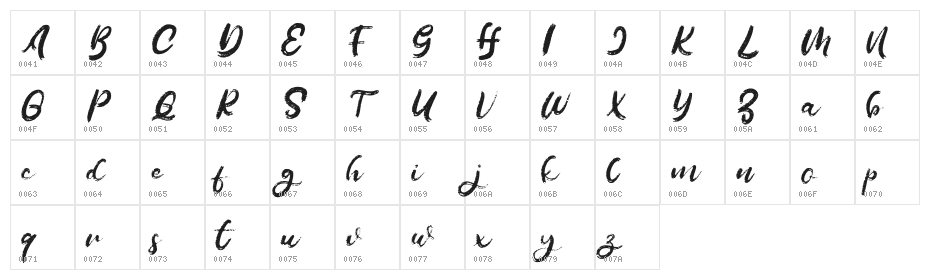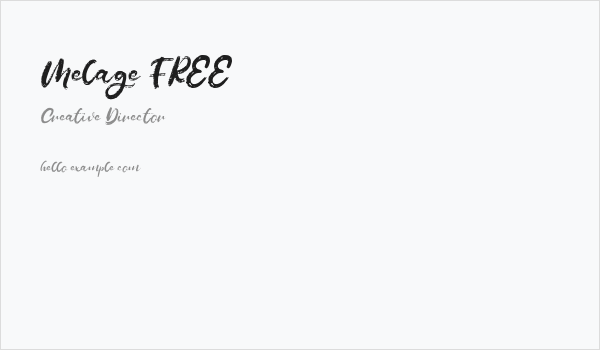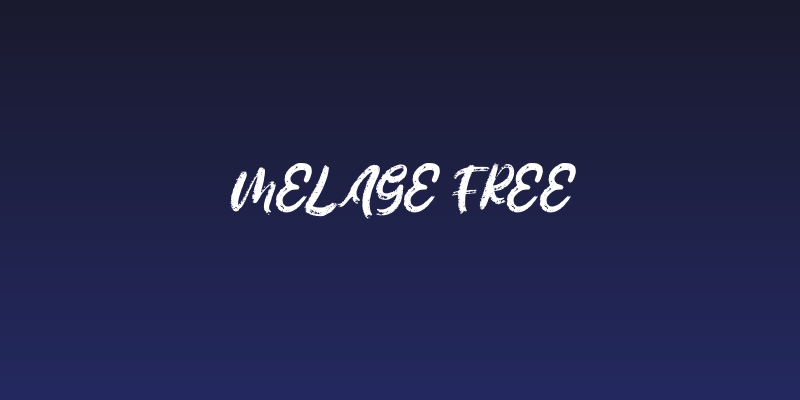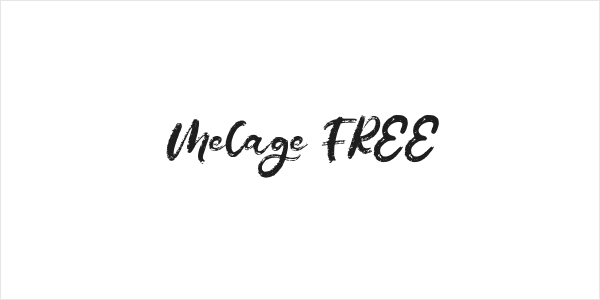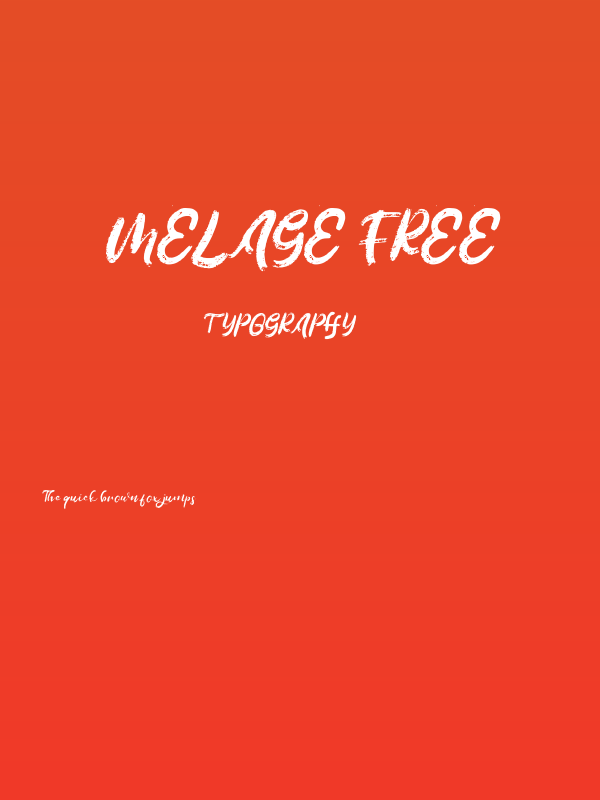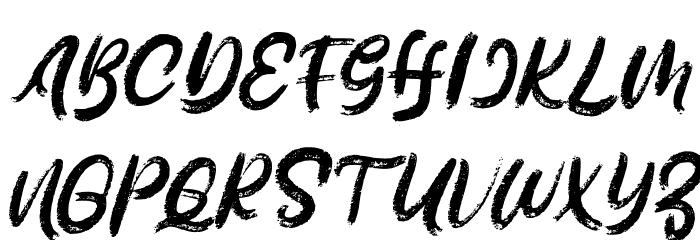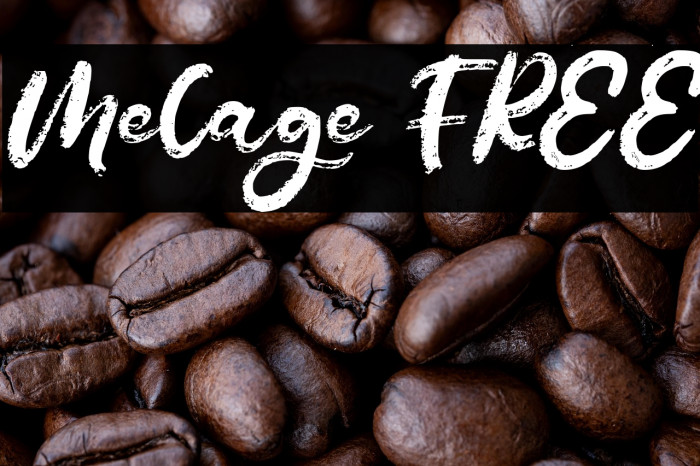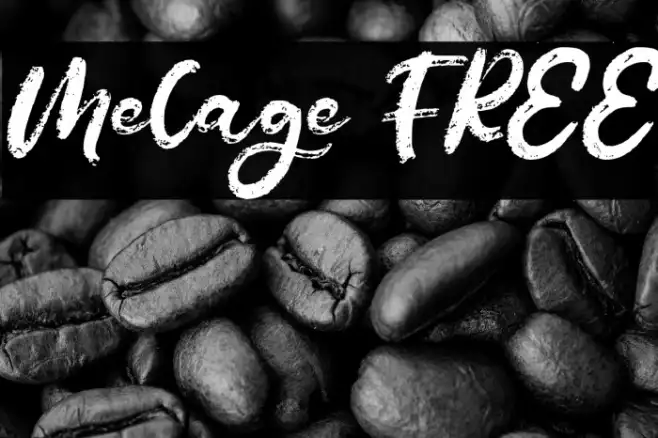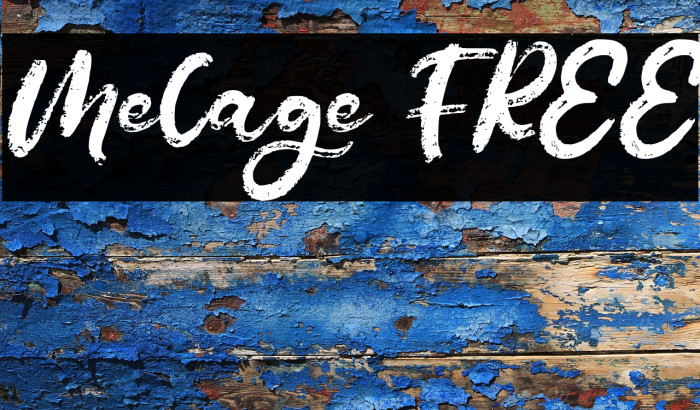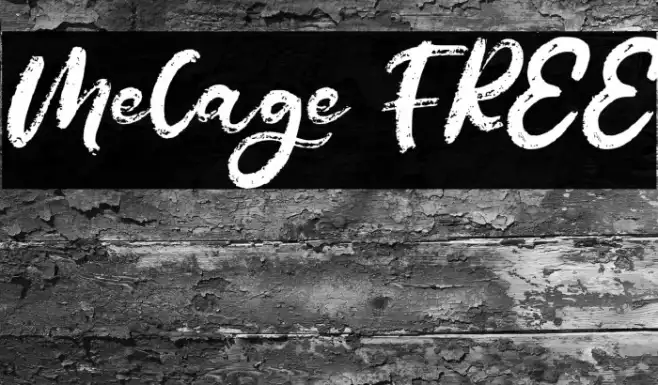
Melage FREE Font
Melage FREE Description
This font features a bold and expressive brush script style, characterized by its dynamic and fluid strokes. The letters exhibit a textured appearance, reminiscent of hand-painted signage, with varying thickness that adds a sense of movement and energy. The uppercase and lowercase letters maintain a consistent style, with swashes and flourishes that enhance its artistic flair. The numbers and special characters are designed to complement the overall aesthetic, making it suitable for creative and eye-catching designs.
| Proposed Projects | Ideal for branding, packaging, posters, and any project requiring a bold, artistic touch. |